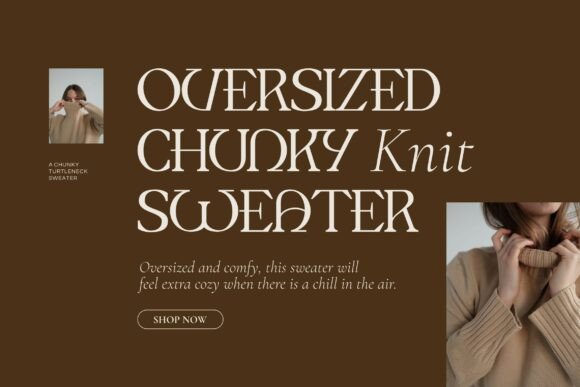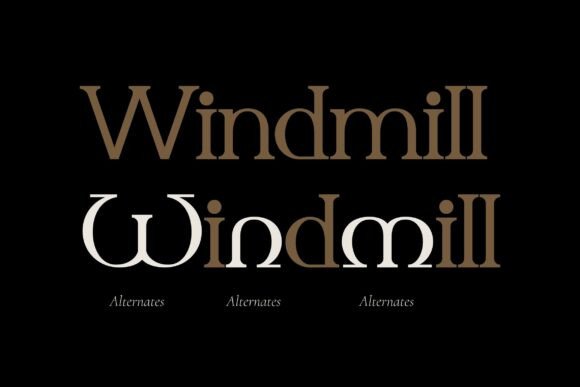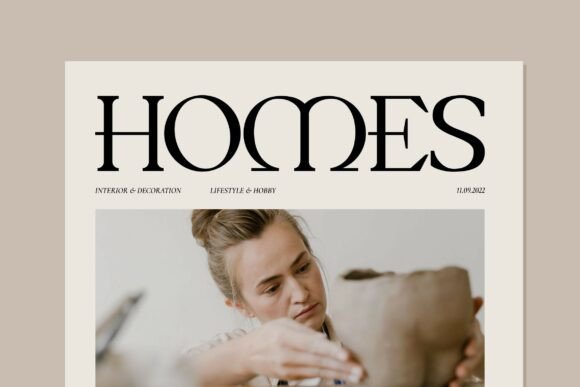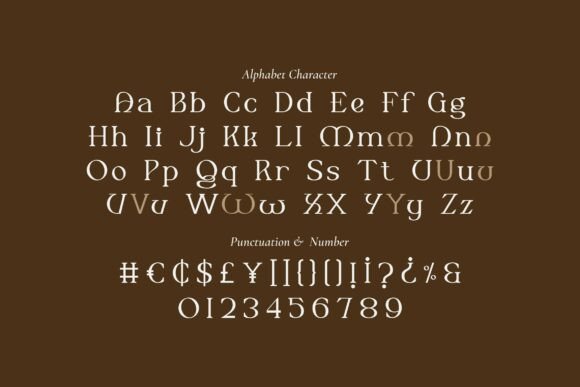
The Art of Elevating Your Designs with the Perfect Font
Imagine you’re staring at a blank page, a blank canvas waiting to be transformed into something extraordinary. The cursor blinks, and your mind starts racing with ideas, but the right words to express them remain elusive. That’s when the perfect font comes to your rescue – a tool that can elevate your message, give it a sense of sophistication, and make it truly unforgettable. For designers seeking to add a touch of luxury to their projects, the Cedor Gusron Font is an elegant solution.
This stunning serif display font is a masterful blend of classic sophistication and contemporary artistry. Its unique alternates and stylish ligatures make it the perfect choice for projects that demand a premium, editorial feel. Whether you’re crafting a high-end logo or an eye-catching social media ad, the Cedor Gusron Font ensures your message resonates with sophistication and modern charm.
Cedor Gusron Font Key Features
- Unique Characteristics: Cedor Gusron features a unique blend of modern and traditional elements, with intricate details and subtle flourishes that add a touch of elegance to any design.
Cedor Gusron Font Review
Overall, I found the Cedor Gusron font to be a solid choice for certain design projects. ✨ One of its strengths is its unique blend of modern and vintage elements, which can add a touch of sophistication to a design. The font is also quite versatile, making it suitable for a wide range of applications, from headings to body text.
- ✨ Unique blend of modern and vintage elements
- ✨ Versatile font suitable for various applications
- ✨ Supports multiple weights and styles
However, I did encounter some limitations with the font. ⚠️ One of the main issues is that the font can be difficult to read at smaller sizes, particularly in digital formats. Additionally, the font’s design can be a bit too ornate for some tastes, which may not be suitable for every project.
- ⚠️ Difficult to read at smaller sizes
- ⚠️ Ornate design may not be suitable for all projects
Overall, I would say that the Cedor Gusron font is a good choice for designers who want to add a unique touch to their projects. While it may have some limitations, its versatility and unique design make it a solid option for certain applications.
Tips for Getting the Most Out of Cedor Gusron Font
Use Cedor Gusron Font for titles, headings, and emphasis to add a touch of elegance to your designs.
Experiment with different font sizes and color combinations to create visual interest.
Pair Cedor Gusron Font with other elegant fonts to create a sophisticated look.
Corporate branding and marketing materials
High-end product packaging and labels